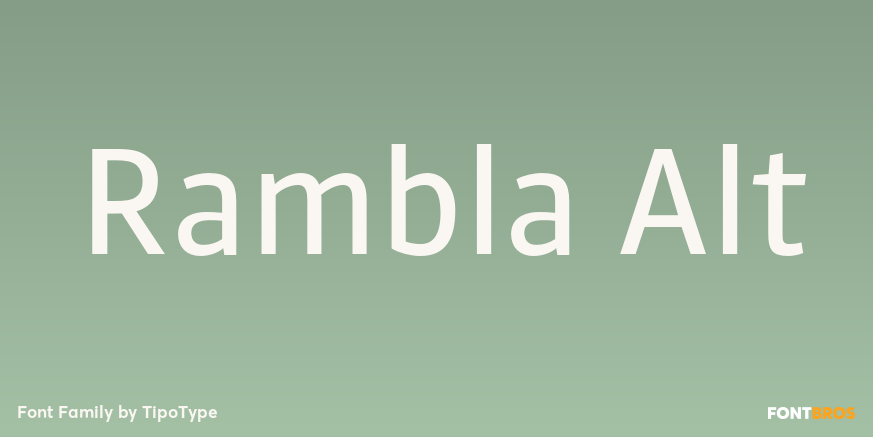
Rambla Alt
About Rambla Alt
Rambla Alt is a variation of Rambla, which has certain modifications without altering its main structure (Rambla is also available). For this reason Rambla Alt is great when used together with Rambla. Rambla Alt is a humanist sans for medium-long texts.…